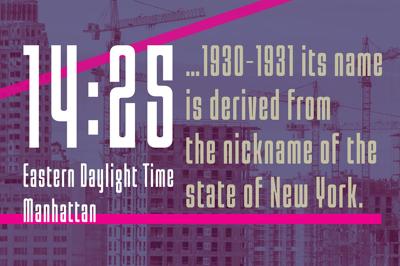
Elemental Sans Pro Font is ideal for scientific publications, chemical laboratories, environmental organizations, educational institutions, periodic table displays, research facilities, sustainable technology companies, and natural science documentation requiring fundamental clarity and precision.
What makes Elemental Sans Pro Font exciting is its fundamental simplicity that captures the essential purity and systematic organization of natural elements through clean, purposeful letterforms. This scientific typeface features refined geometric construction with precise proportions that evoke the methodical classification and elemental beauty of chemistry and natural sciences, making it perfect for projects requiring scientific authenticity and the representation of fundamental knowledge in their educational communications.
The Elemental Sans Pro Font family includes comprehensive weight ranges from thin to black, plus scientific character sets and specialized symbols that enhance the elemental aesthetic with laboratory-quality typography and research-focused design elements for academic applications.
This fundamental typeface delivers exceptional scientific clarity and educational authority, making Elemental Sans Pro Font Free Download an essential resource for science and education industry projects. The font's elemental character makes it perfect for institutions wanting to communicate scientific rigor and educational excellence in their academic materials. Chemistry departments and environmental research centers particularly value its ability to convey systematic knowledge and scientific credibility instantly to students and researchers. The systematically designed letterforms ensure optimal readability while preserving the precise appeal of scientific methodology across all applications from textbook publications to laboratory signage. Whether you're creating materials for chemistry education or developing branding for environmental research organizations, this font provides the perfect combination of scientific authenticity and educational accessibility. Creative professionals consistently choose this typeface for projects requiring that ideal balance of academic authority and clear communication, making it invaluable for scientific communications that celebrate both fundamental understanding and practical application in today's knowledge-driven educational landscape.